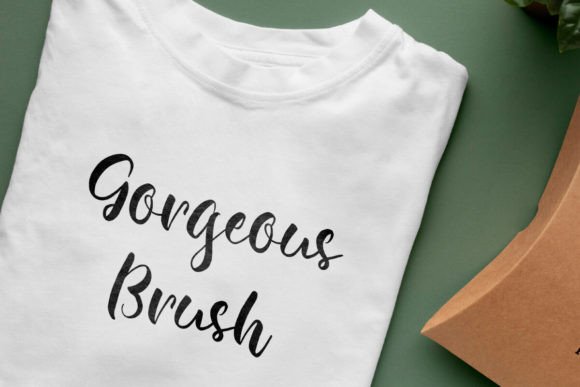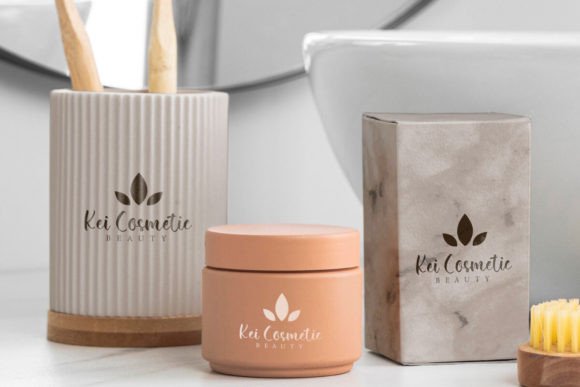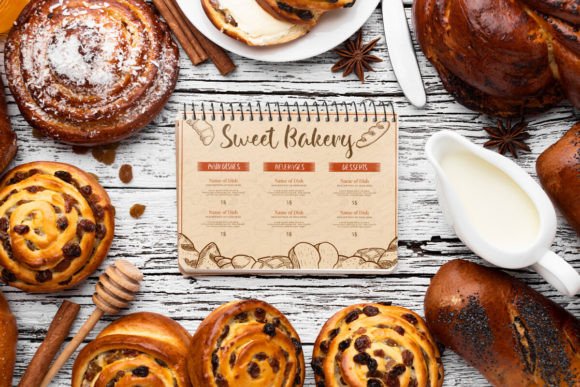
Introduction to Gorgeous Brush Font
Gorgeous Brush Font is a calligraphy script font with an amazing balance of thick and thin brushes.
This font will give your design a stylish look, such as brand logo, calendar, label, menu, quote, screen print, stationery, sticker, title, watermark, and much more .
Key Features of Gorgeous Brush Font